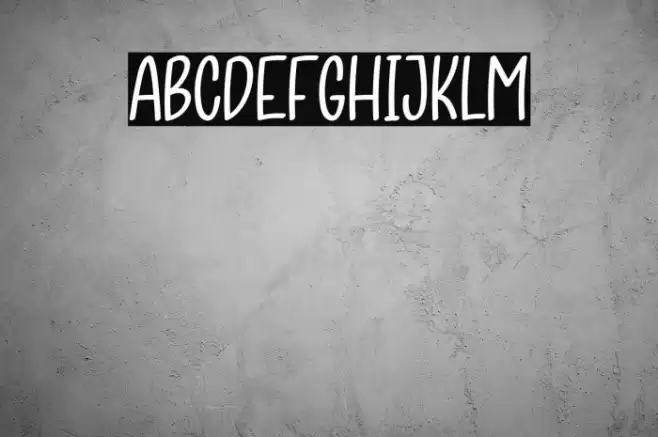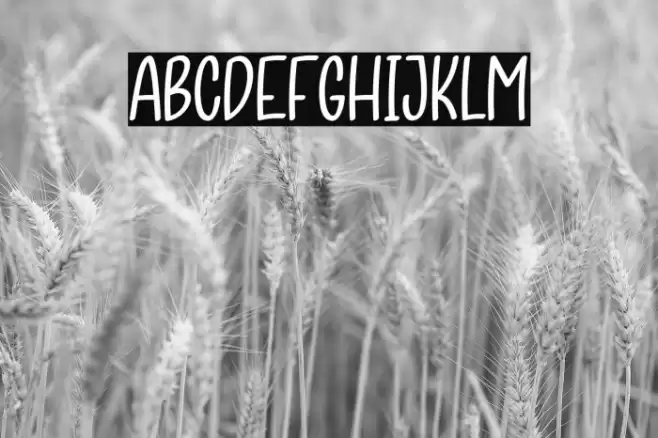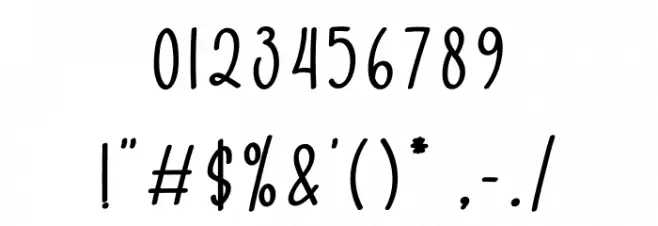
Ice Skating Font
Ice Skating Description
This font features a playful and casual handwritten style, characterized by its smooth curves and slightly irregular strokes. The letters have a natural flow, giving it a friendly and approachable appearance. The uppercase and lowercase letters maintain a consistent style, with a slight slant that adds to its informal charm. The numerals and special characters are designed to match the overall aesthetic, making it versatile for various uses. The font's design is clean yet expressive, making it suitable for projects that require a personal touch.
A playful, handwritten font with smooth curves and a casual style from Uncategorized fonts.
- Font: Ice Skating
- Proposed Projects: Ideal for greeting cards, invitations, personal branding, and social media graphics.
- Overall Style: Casual
- Use Case: Headlines, Logos, Informal Text
Ice Skating UPPERCASE
Ice Skating LOWERCASE
Ice Skating OTHER CHARS